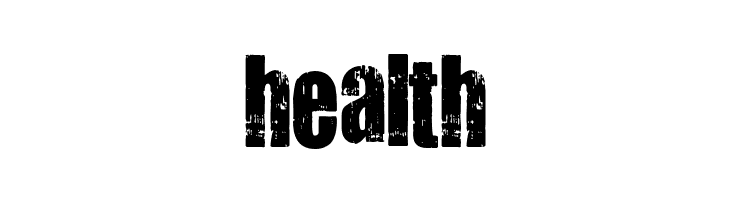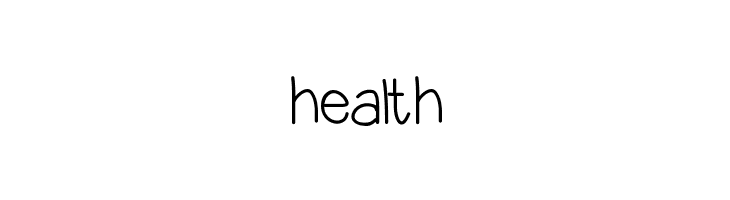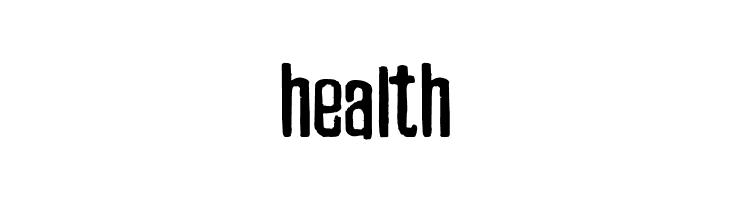
A playful, casual handwritten font with fluid strokes and a natural feel.
A playful, casual handwritten font with fluid strokes and a relaxed feel.
A bold, distressed font with a rugged, vintage feel.
A playful, handwritten-style font with rounded edges and a casual feel.
A lively, cursive font with a handwritten feel, perfect for personal and elegant designs.
A bold, rugged font with a vintage, industrial feel and consistent stroke widths.
A bold, distressed font with a vintage, hand-crafted appearance.
A distressed, vintage-style font with a rugged, textured appearance.
A bold, vintage-style font with thick, rounded serifs and a handcrafted feel.